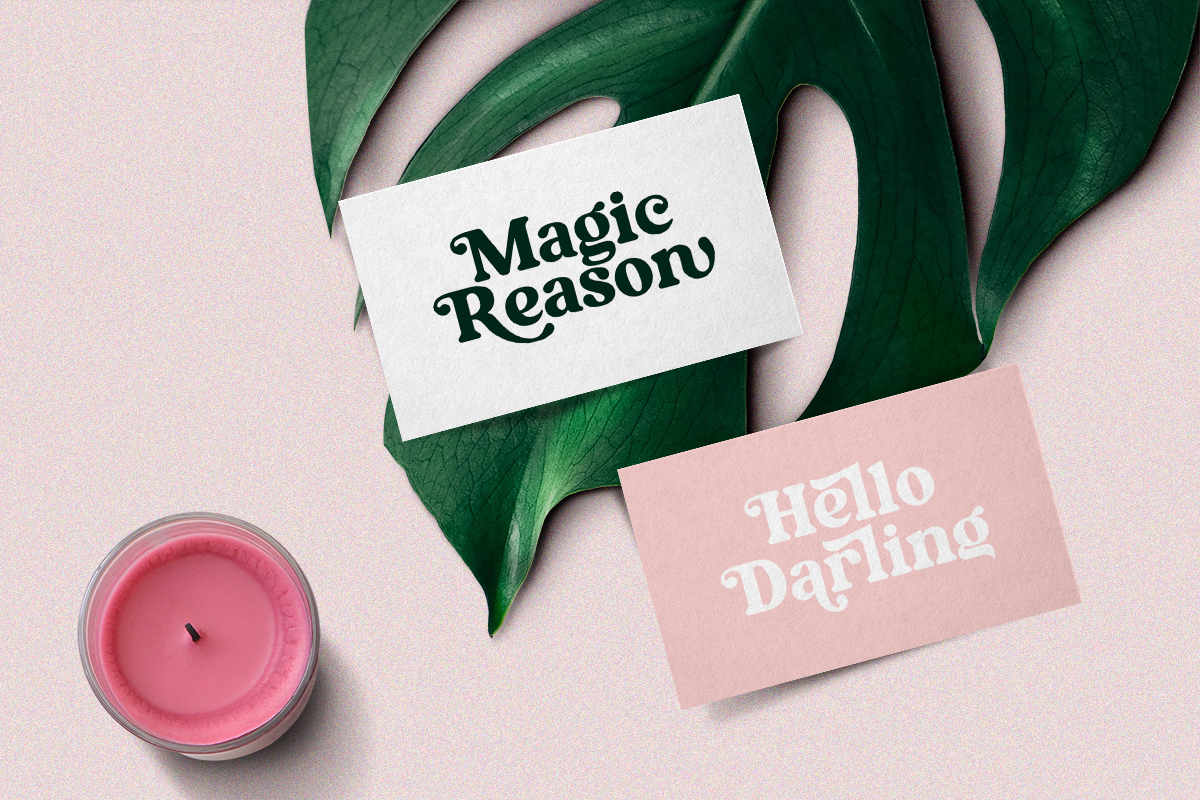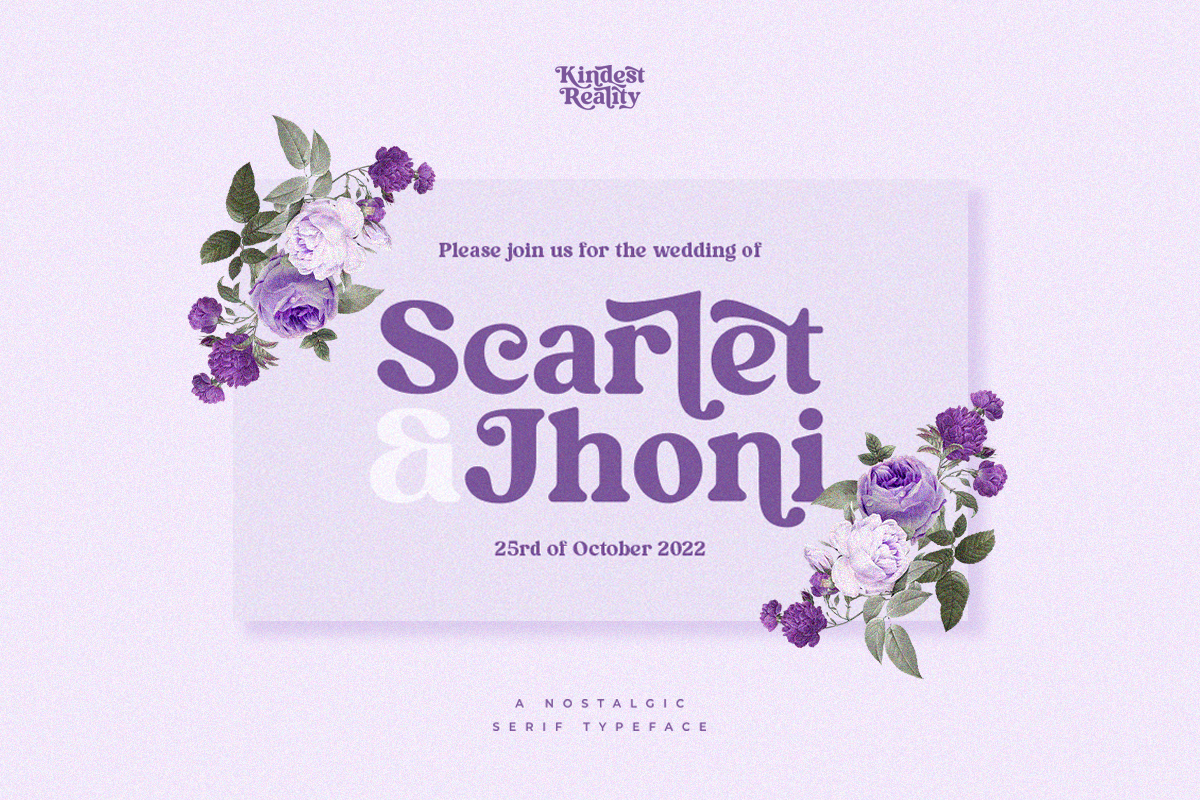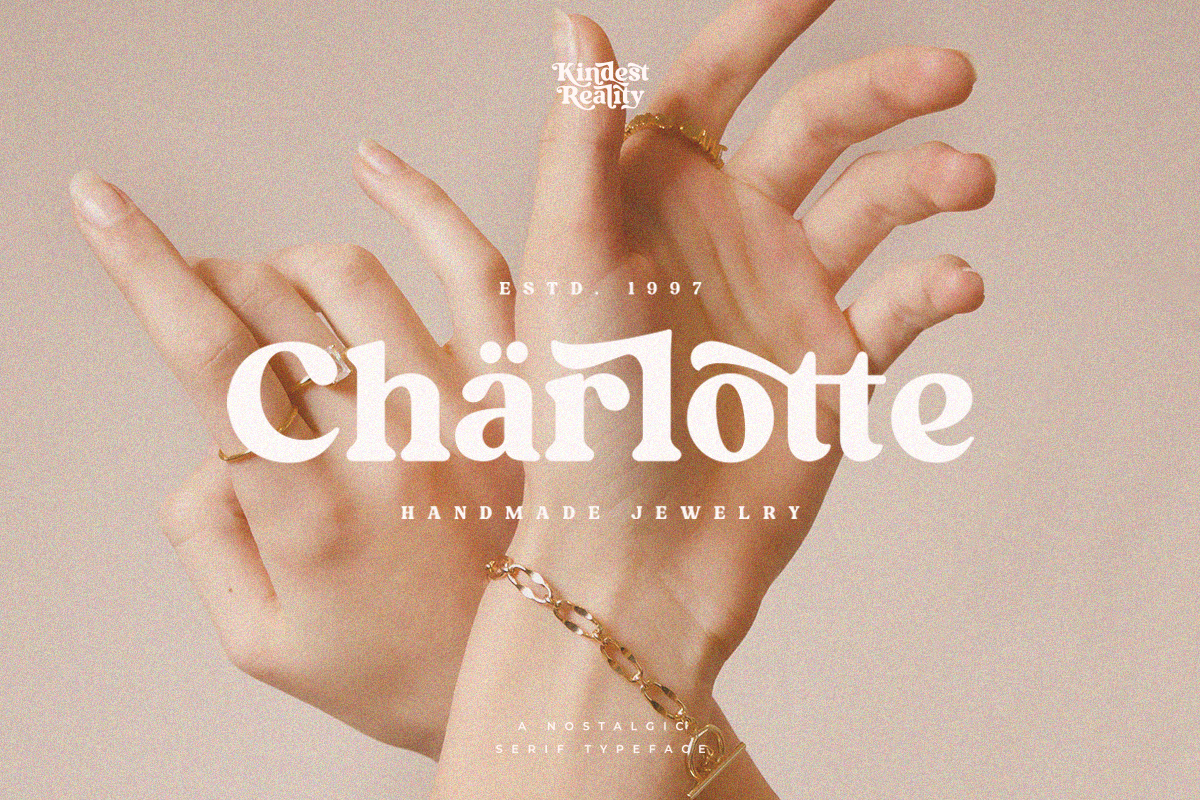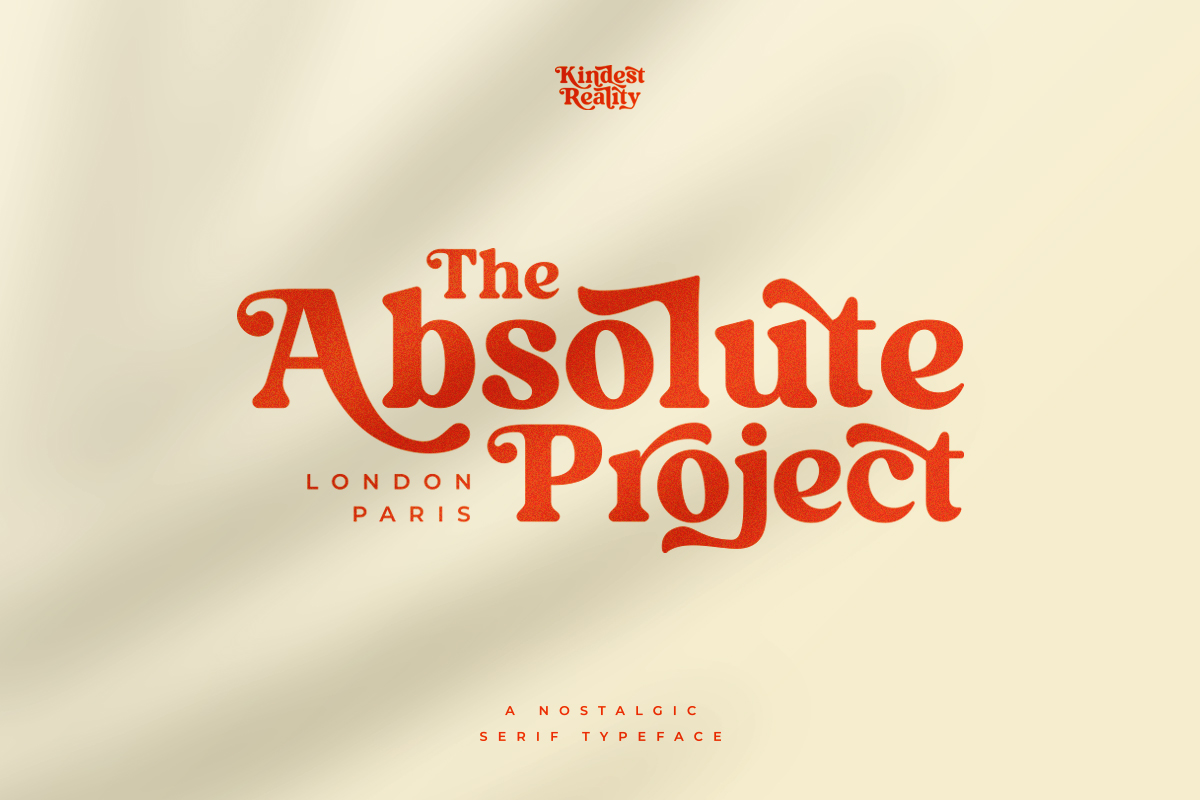
Kindest Reality Typeface
Kindest Reality Serif Typeface
This Is A Nostalgic Serif Font Inspired By Classy and Curve Character. You can use this font for unlimited purpose such as wedding invitation, branding, or even your own logo. The ligatures will make your logo more advanced without many steps. This fonts support Multi Language.